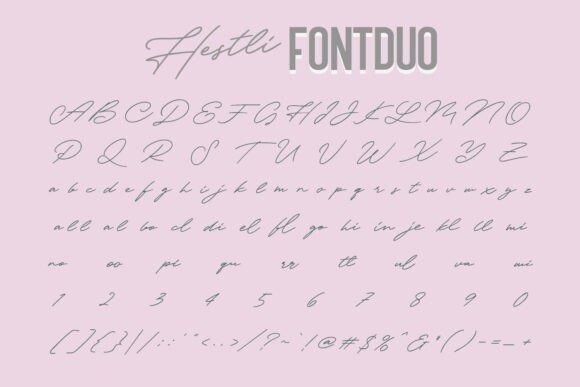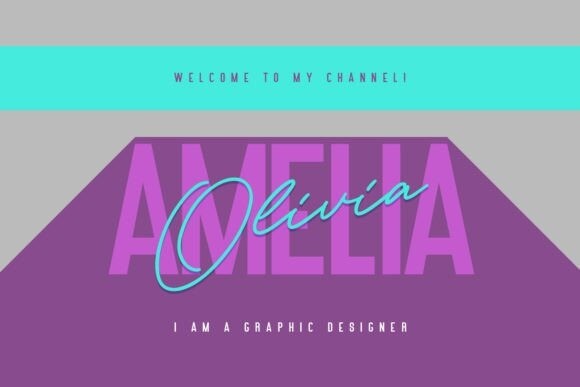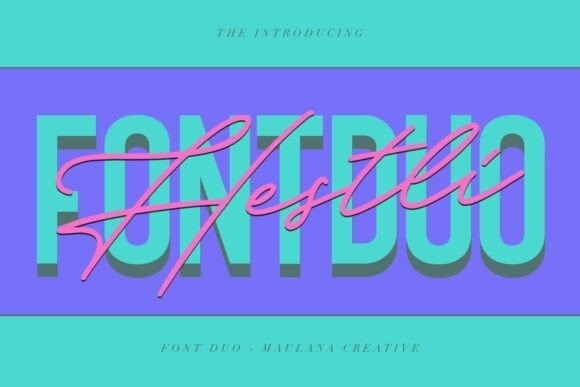
Hestli Font Duo
Designer: Maulana Creative
Hestli Font Duo, give your designs an authentic brush handcrafted feel. It is perfectly suited to signature, stationery, logo, typography quotes, website header, branding and more.